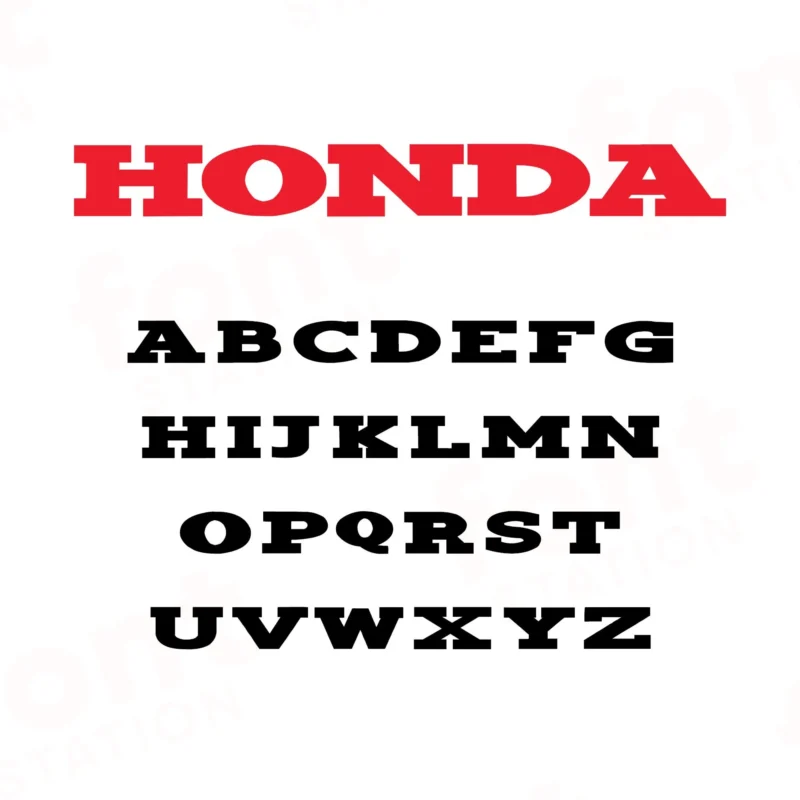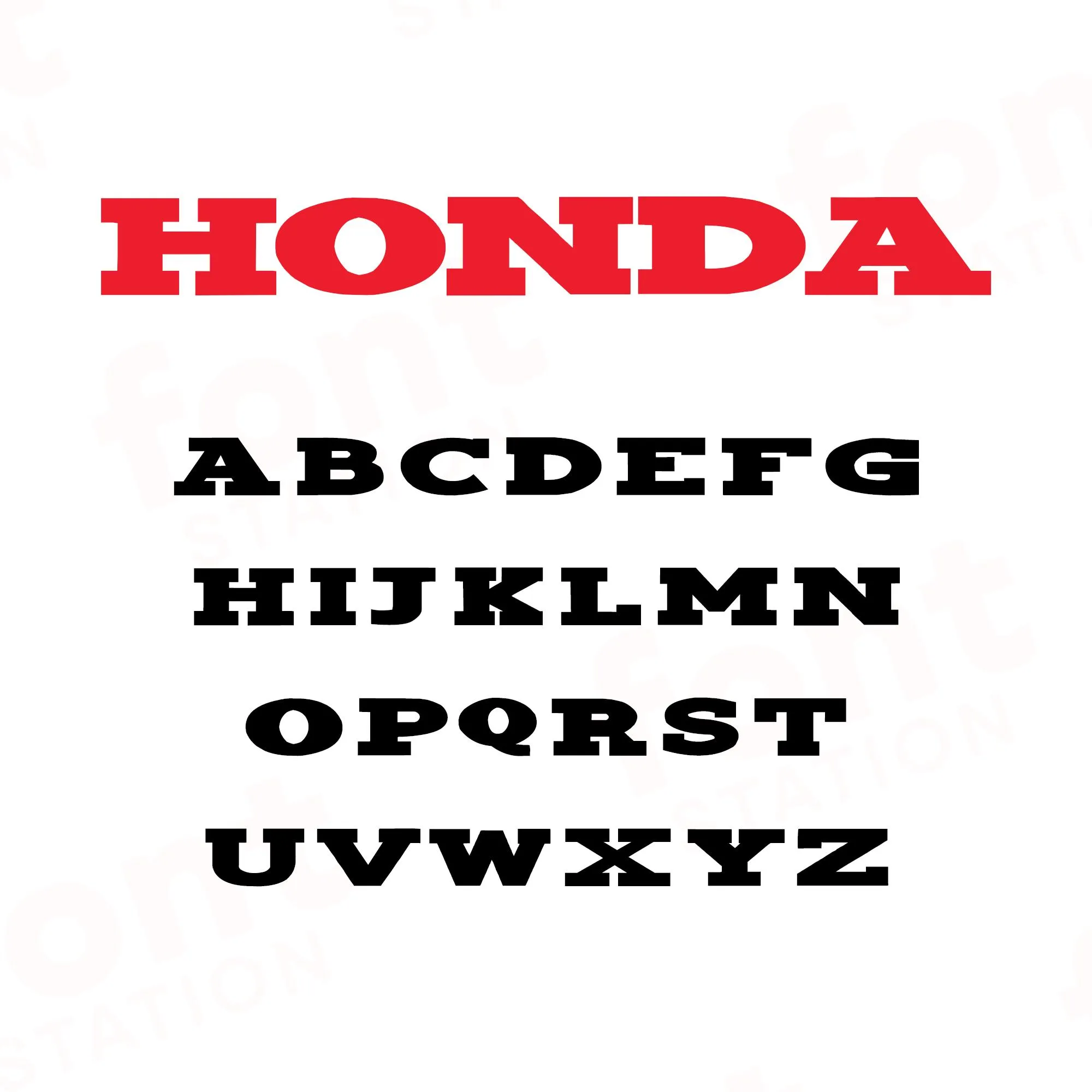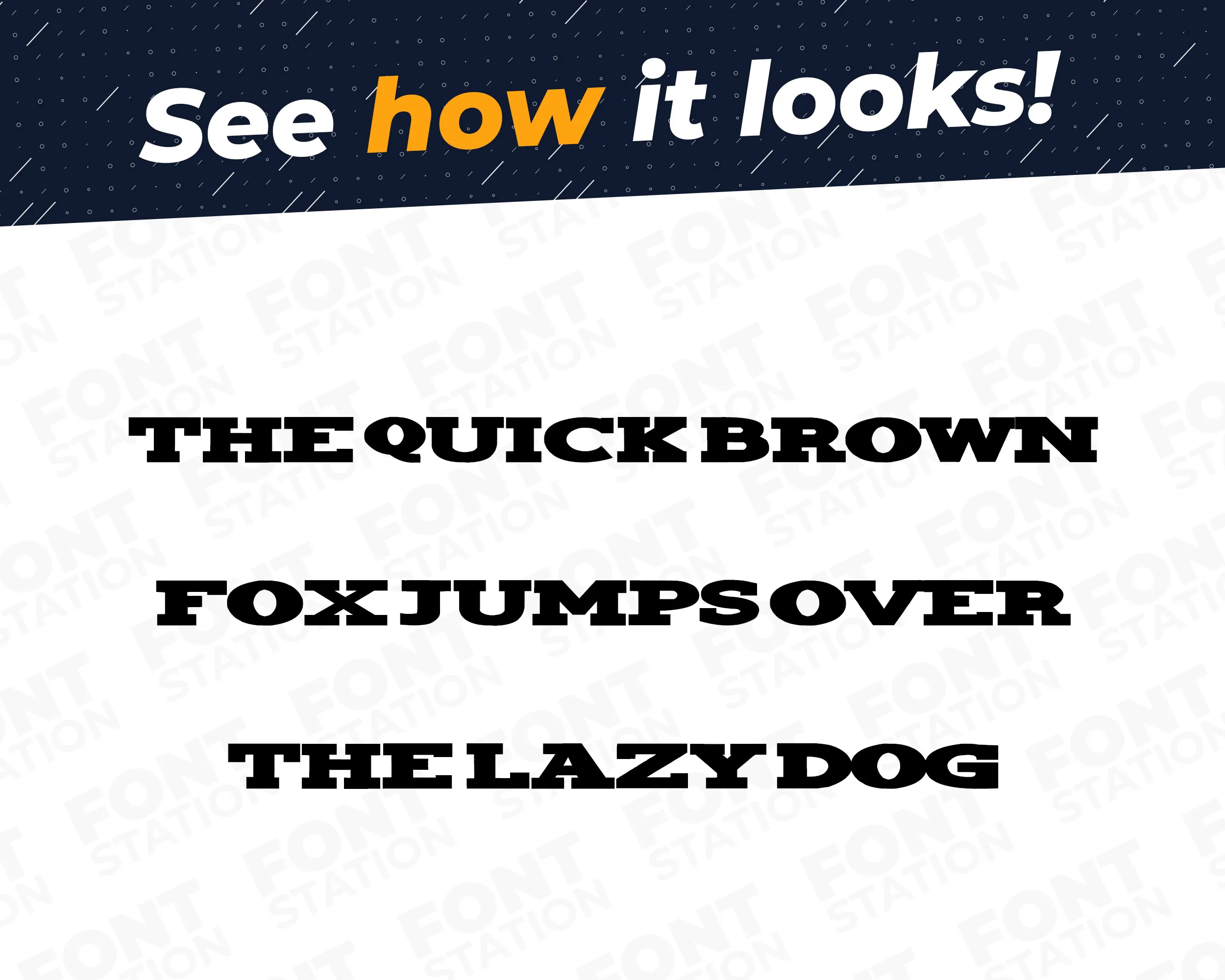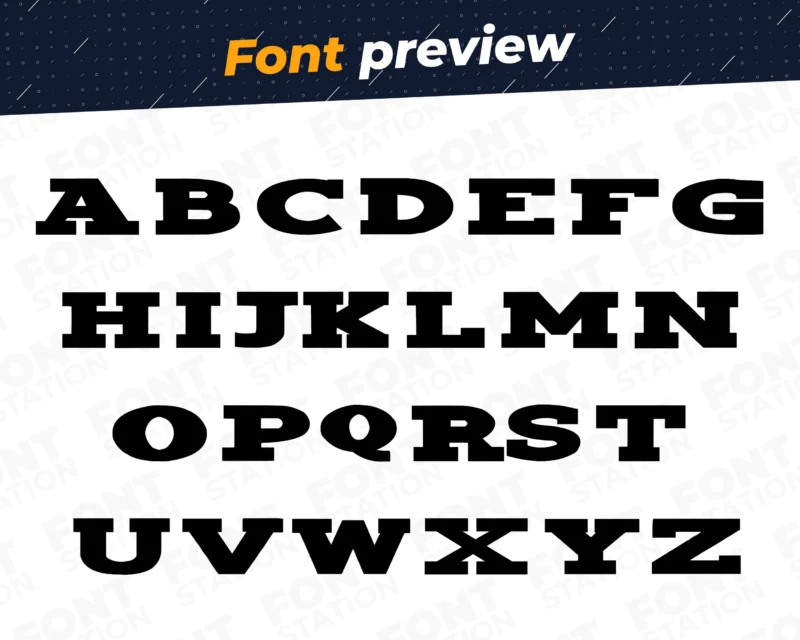
Our Hondish typeface, inspired from Honda font
Grab your computer, tablet or other device and start creating right now with our Honda font letters! Our Hondish typography is inspired from Honda car font, making it ideal for various digital creations (logo, word…), sublimation, cake toppers, stickers, event decorations, and more.
Honda Font